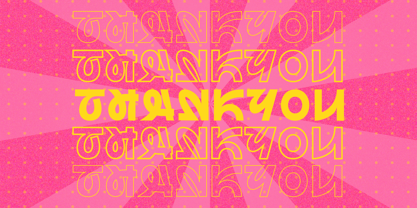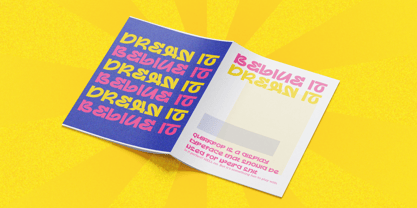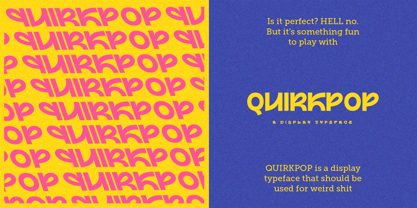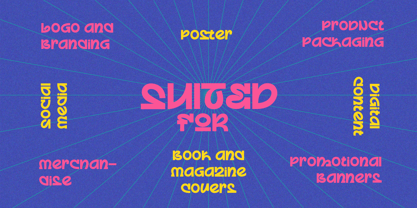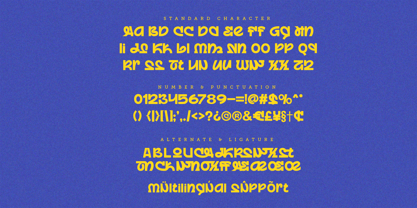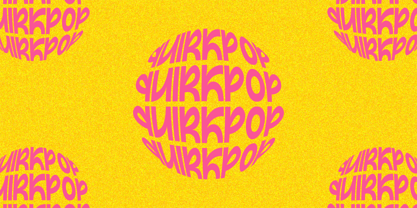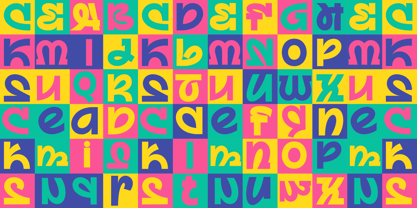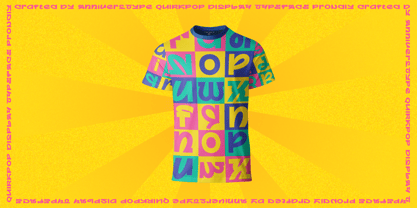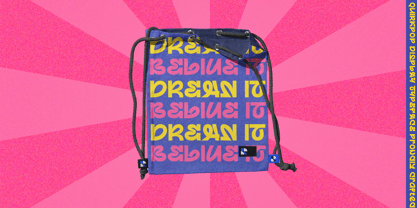
Quirkpop
von Annivers Type Studio
Die Schriftfamilie Quirkpop wurde von Sigit Ananta entworfen und von Annivers Type Studio veröffentlicht. Quirkpop enthält 1 Stile. Mehr über diese Familie
The Quirkpop Display Typeface brings retro charm and pop style to any design, making it perfect for projects that want to stand out. Ideal for promotional posters, banners, and event materials, Quirkpop also adds personality to merchandise like t-shirts, tote bags, and other fashion items. With its unique flair, it's a great fit for logos and branding aimed at vintage or playful vibes, as well as book and magazine covers inspired by 80s and 90s culture. Use Quirkpop for product packaging, social media content, or even invitation designs to captivate a young, style-conscious audience.
Designer: Sigit Ananta
Foundry: Annivers Type Studio
Annivers Type Studio Based in East Java, Indonesia, Annivers Type is led by Sigit Ananta, an experienced and passionate type designer with a commitment to delivering high-quality, professional fonts. Our mission is to create versatile typefaces that cater to designers and brands seeking unique, polished typography solutions. With a broad portfolio that spans everything from classic serifs to expressive display fonts, Annivers Type focuses on innovation and craftsmanship to meet the creative needs of businesses worldwide.Each font we design is made with attention to detail, combining functionality with a distinctive aesthetic to suit various design projects. Our team is driven by a dedication to accessible, stylish fonts that empower creators to bring their ideas to life. We are excited to see how designers incorporate our fonts into their work, transforming everyday projects into memorable designs.